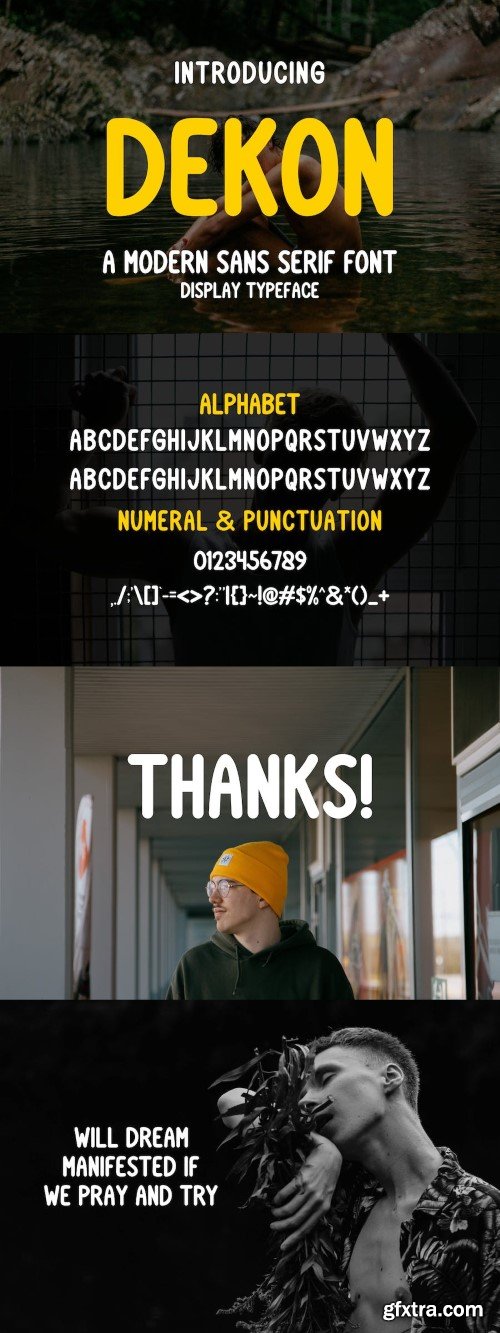
德康 - 现代无衬线字体
Introducing Dekon Modern Sans Serif. Dekon is a modern and simple font, best used as a display for headings, logos, branding, magazines, product packaging and invitations. Dekon come with clean lines and smooth curves give any project an extra touch of class.